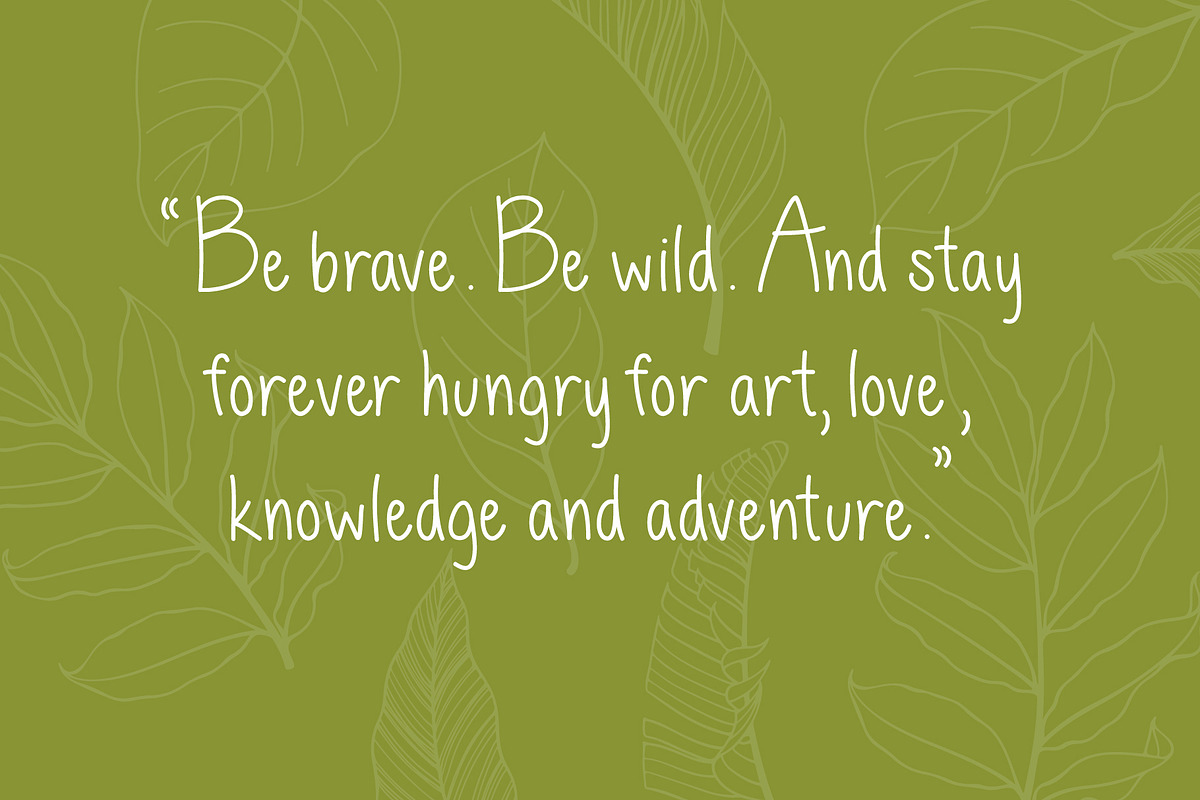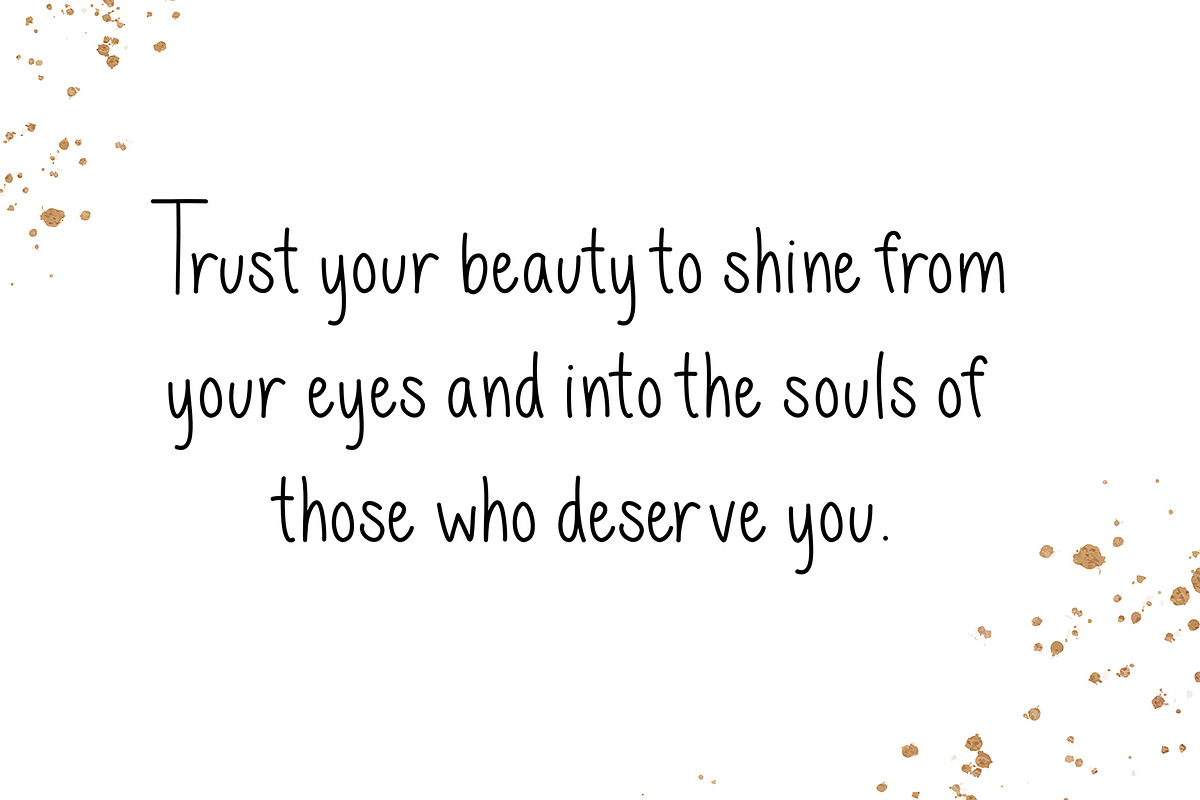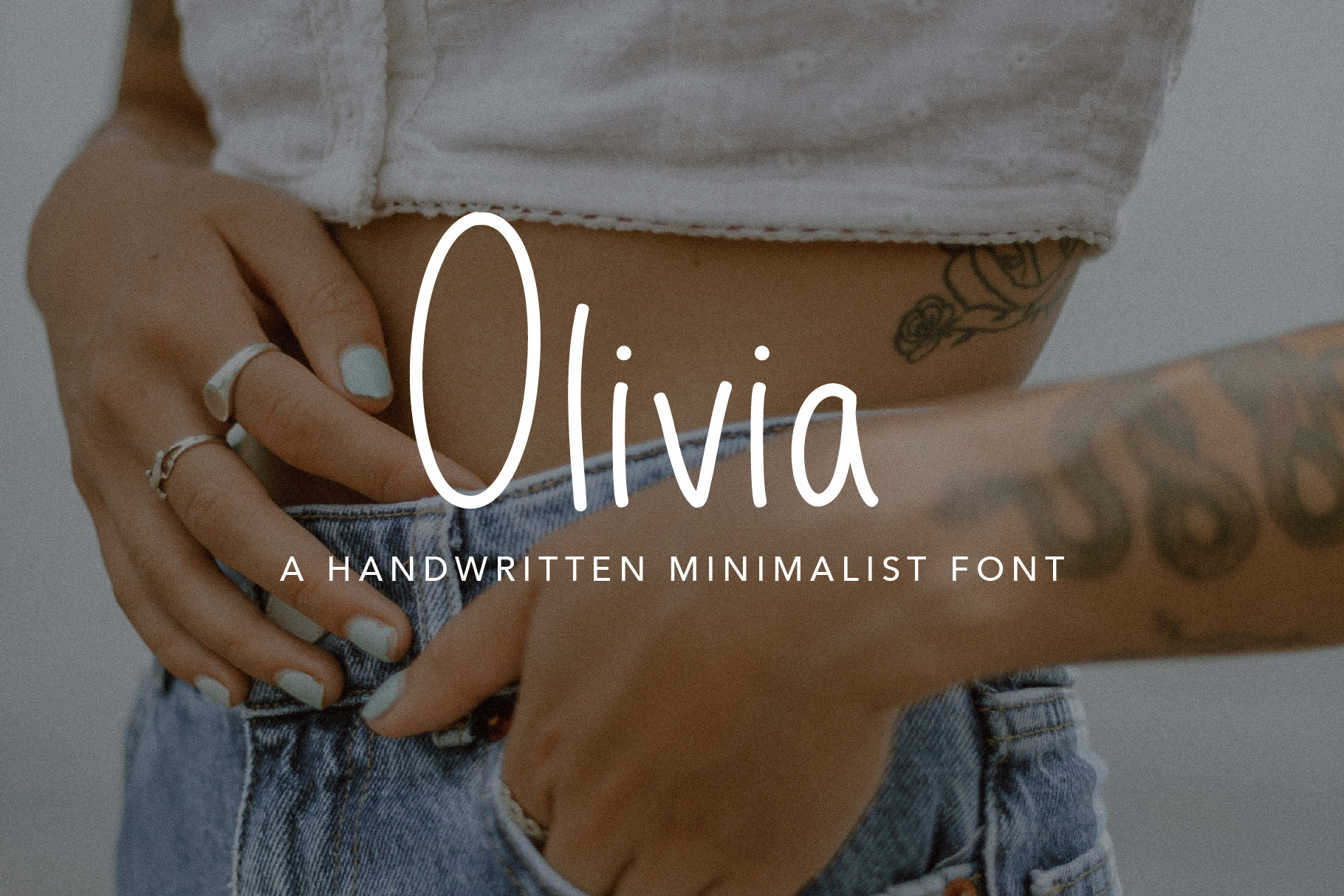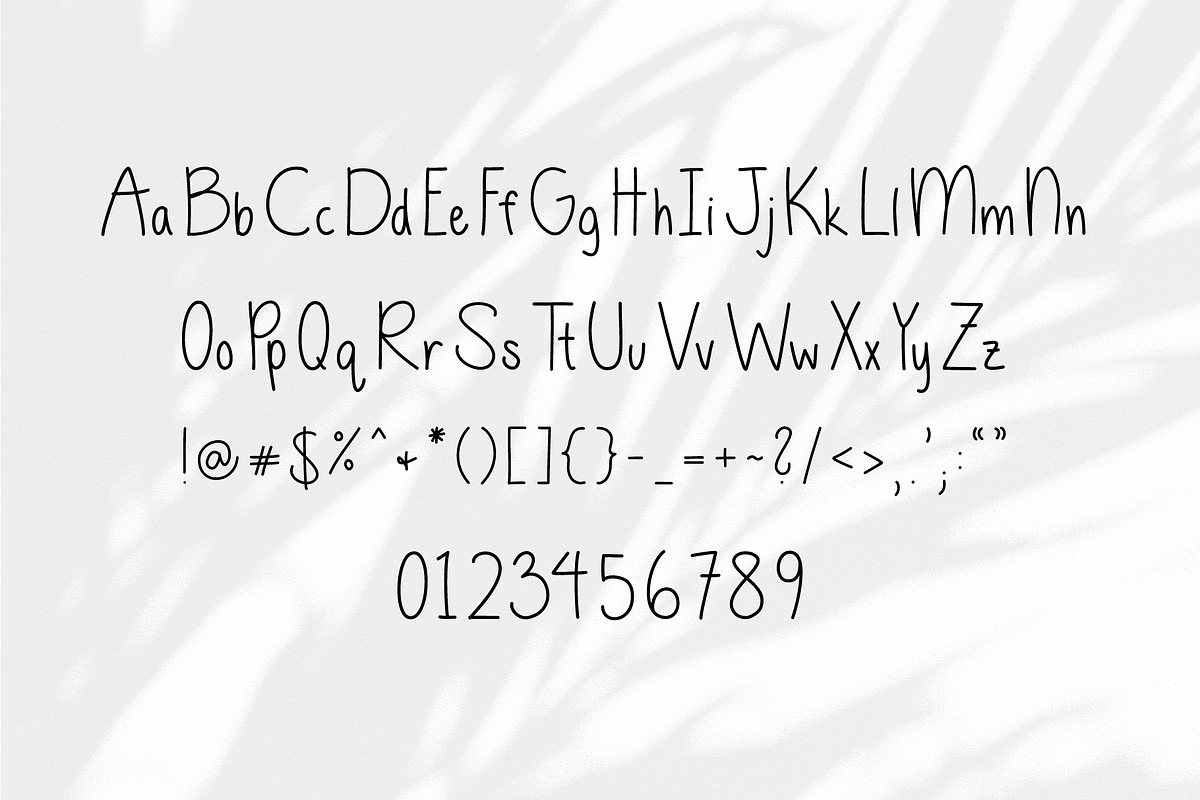
Olivia Font
Olivia's organic lines and curves give a soft, handwritten look, with a touch of feminine. Olivia is a simple, clean, medium weight font that is perfect for blogs, invites, social media graphics, greeting cards, logos, etc.
This font includes upper and lowercase glyphs, numbers, and punctuation.